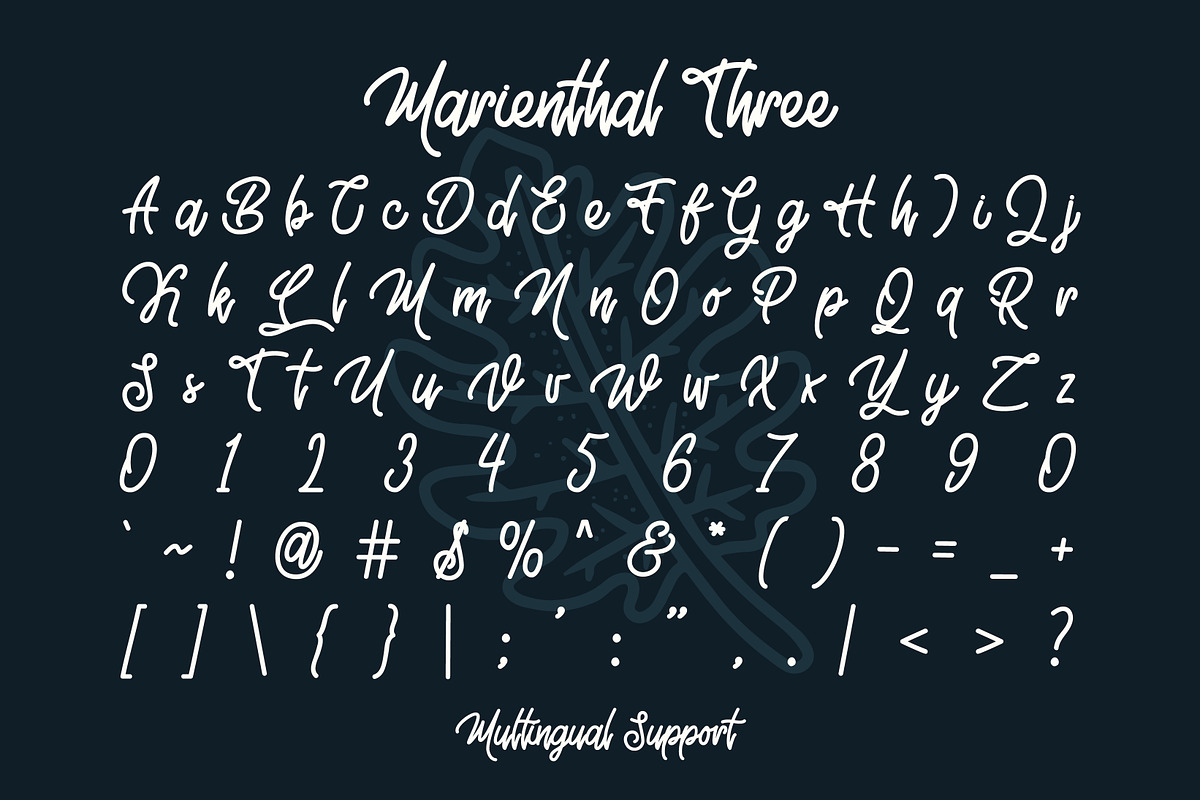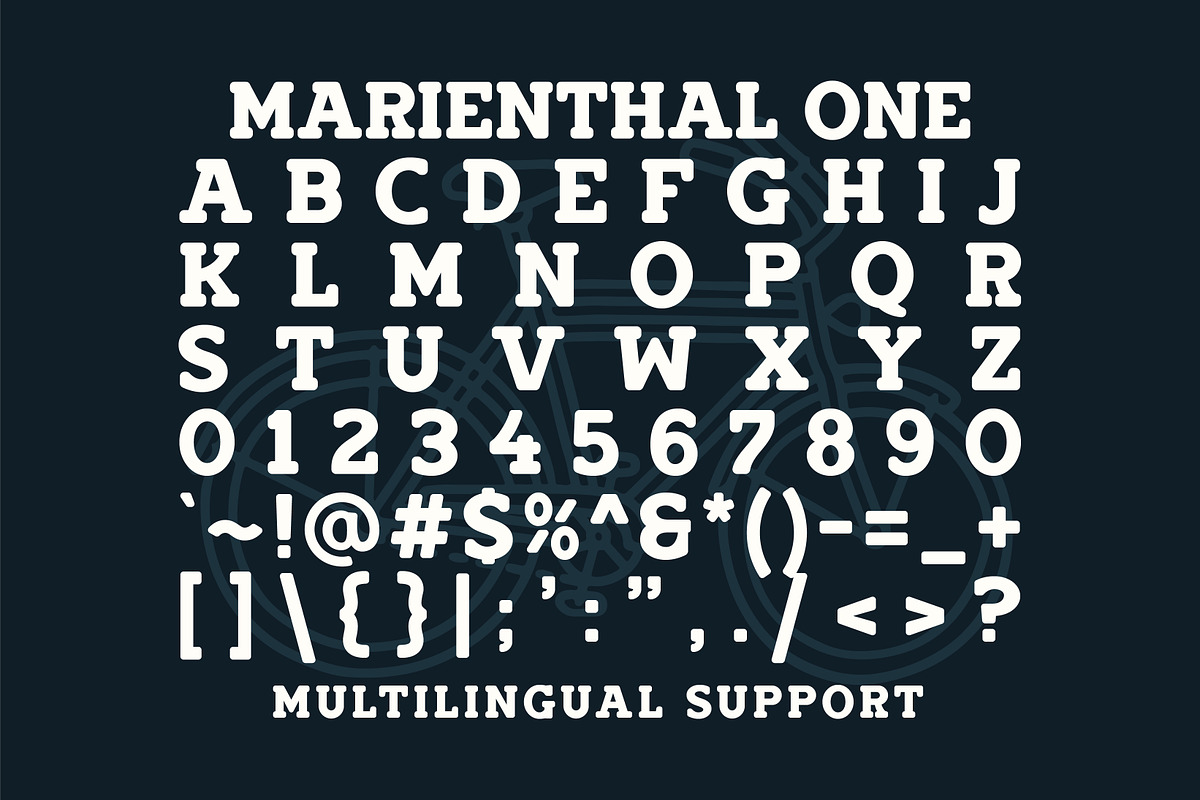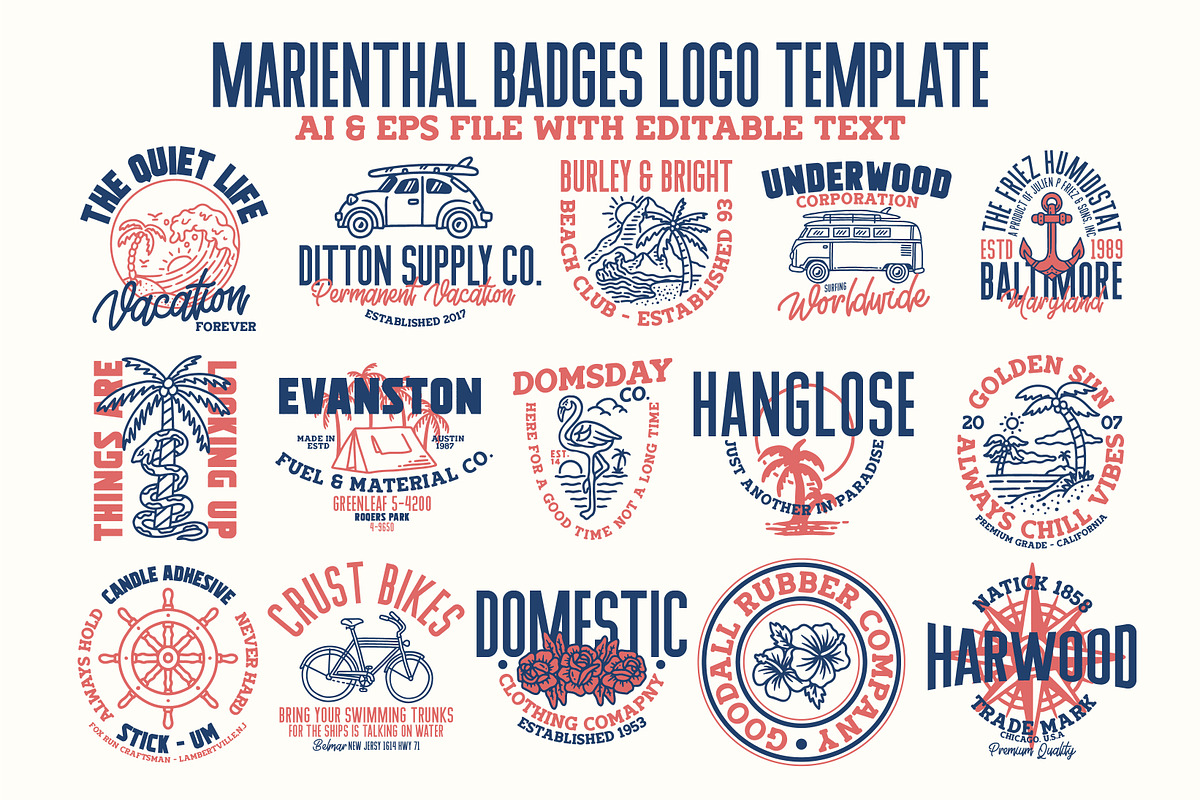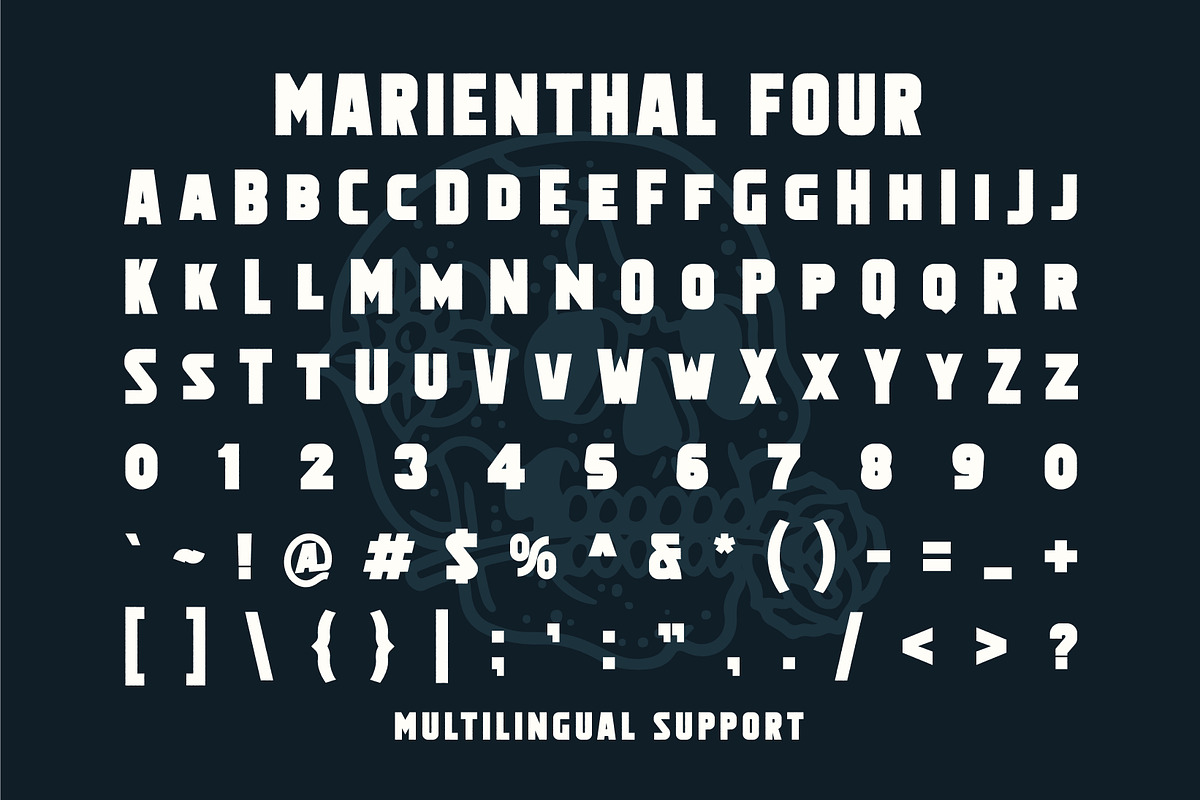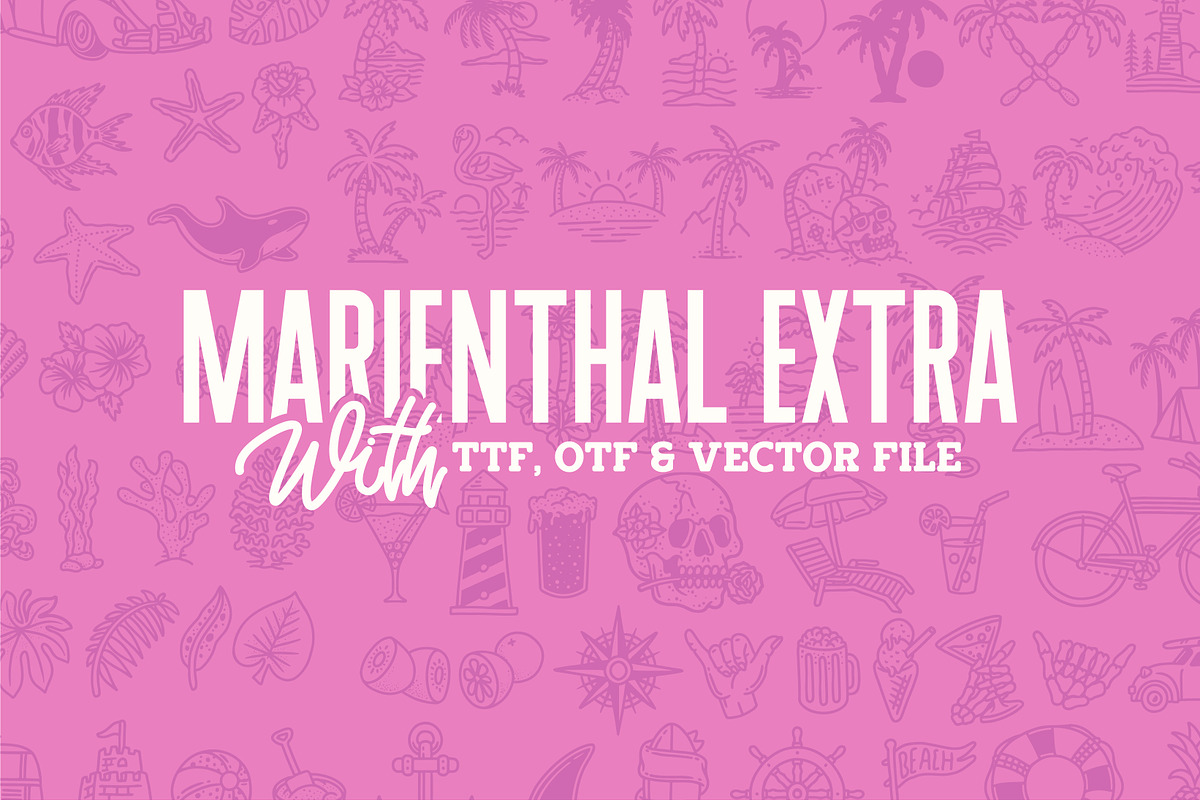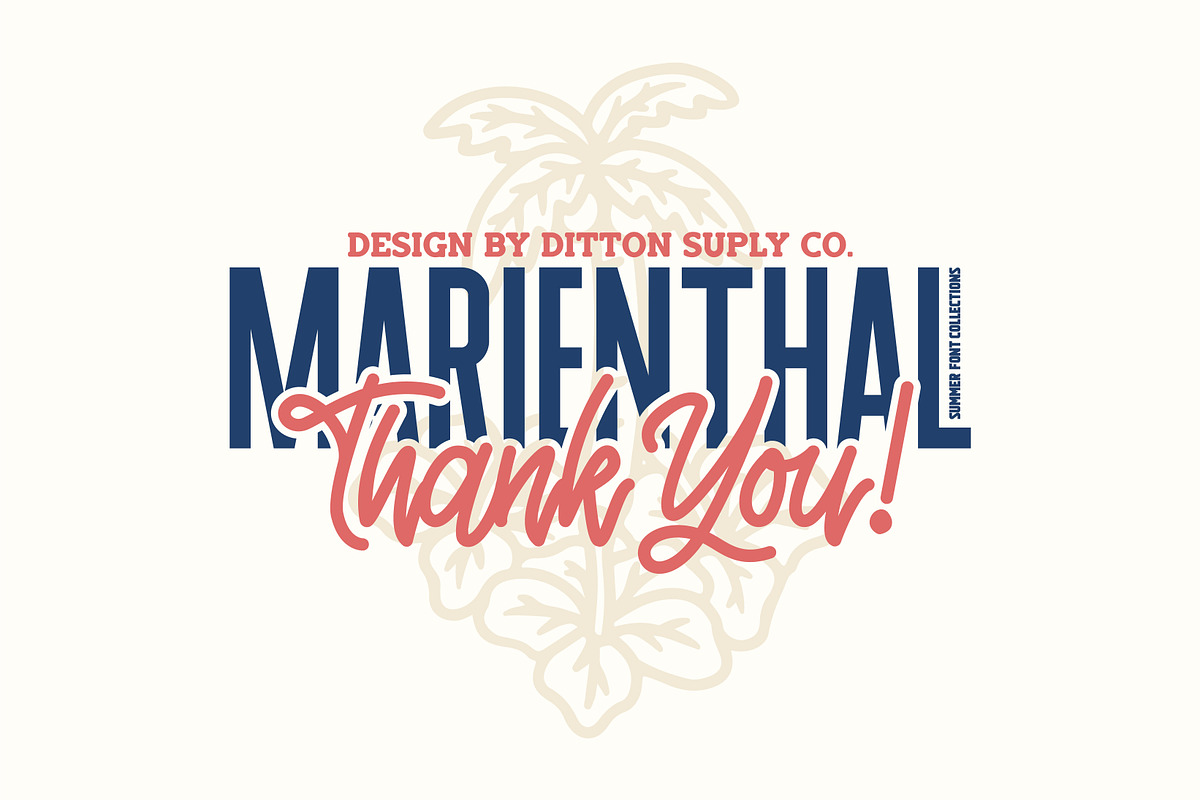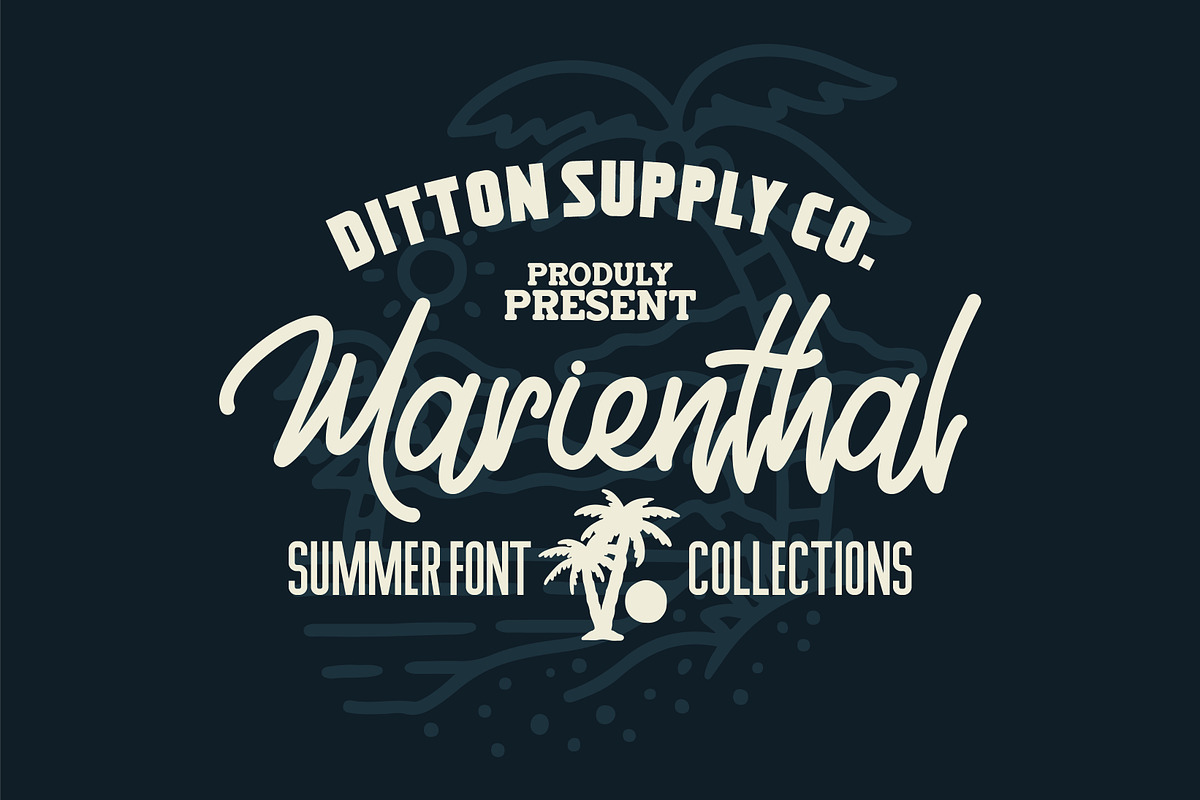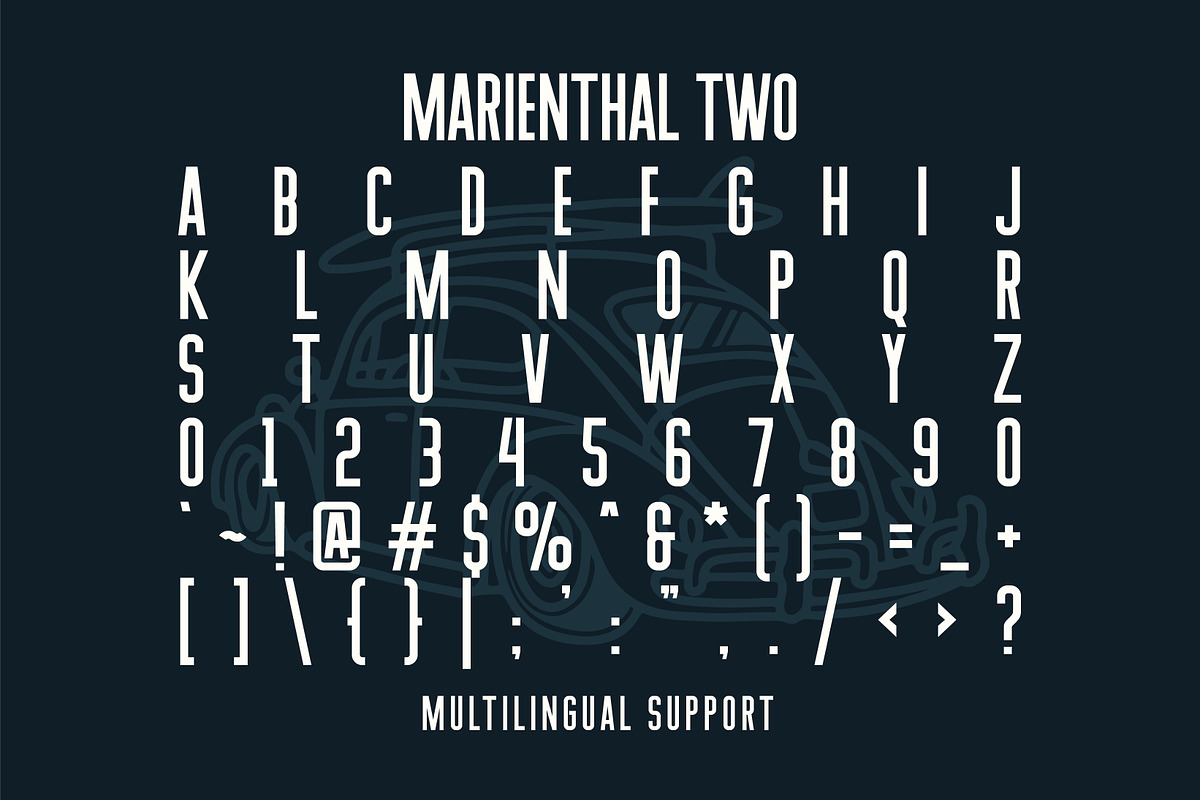
Marienthal Font Bundle + Extras!
Marienthal Font Family includes 4 Font and Summer Vector Collections that have different styles from each other but at the same time perfectly paired when used together create your best design with this font for any purposes suck as t-shirts, sign, sticker, logos, poster design, magazine, mark, headings, logo type, quotes, apparel design, invitations, flyers, greeting cards, product packaging, book cover, and others.
This is essentially 4 fonts being released together instead of separately. 4 Fonts, 90+ Summer Vector Illustrations, and 15 Logo template.
All the designs and contained in the poster use Marienthal font family!